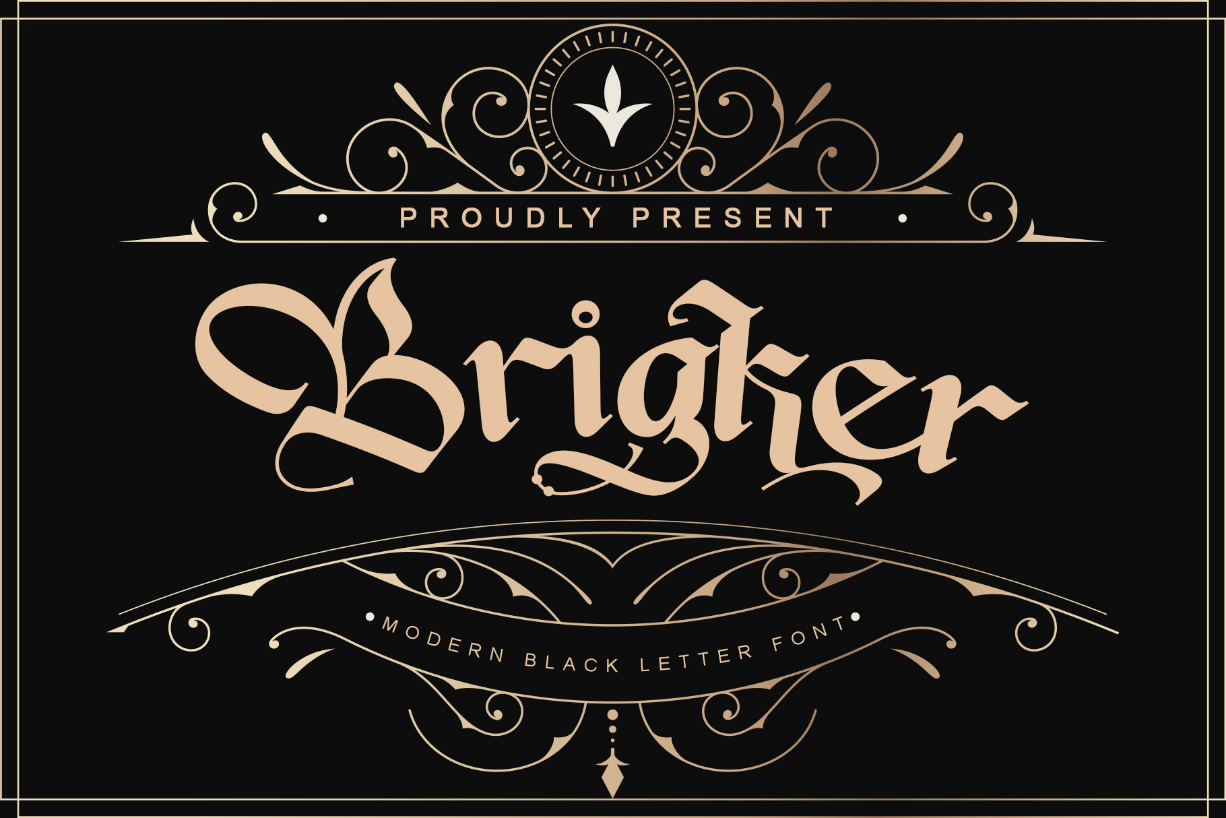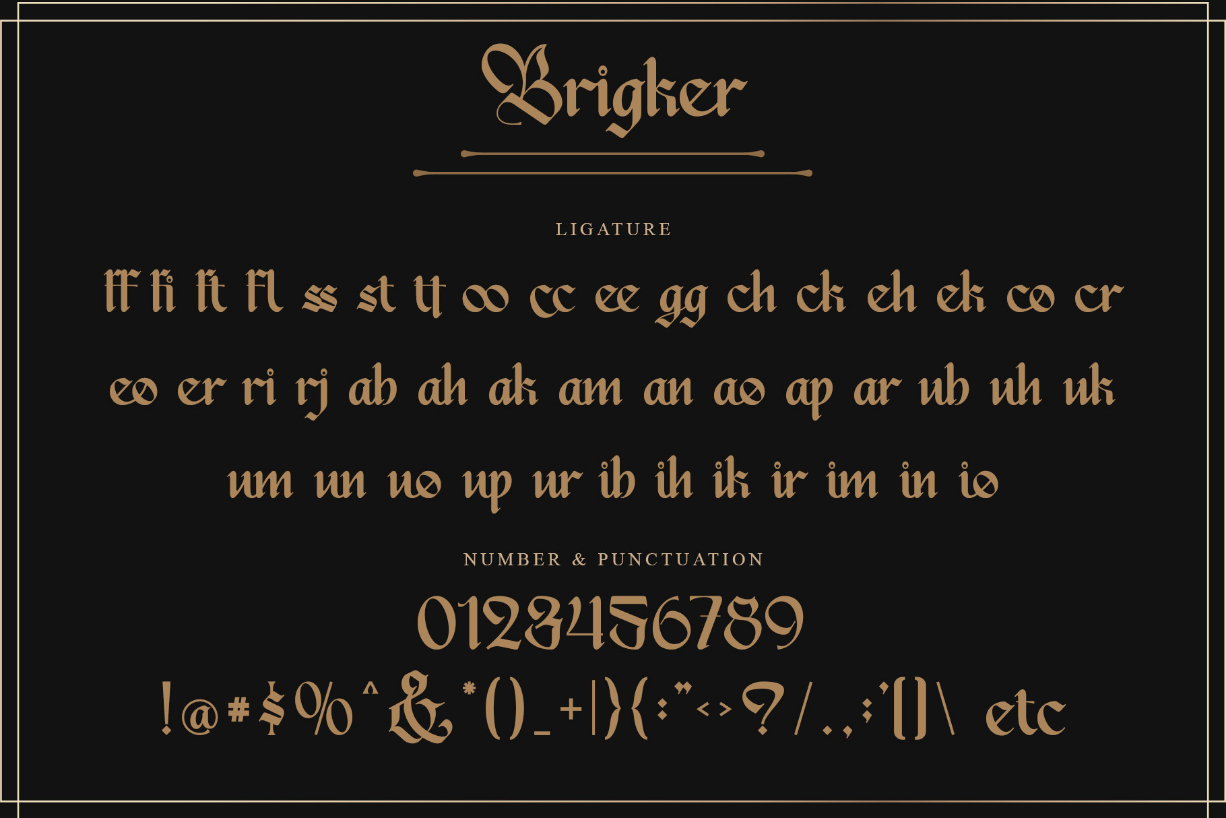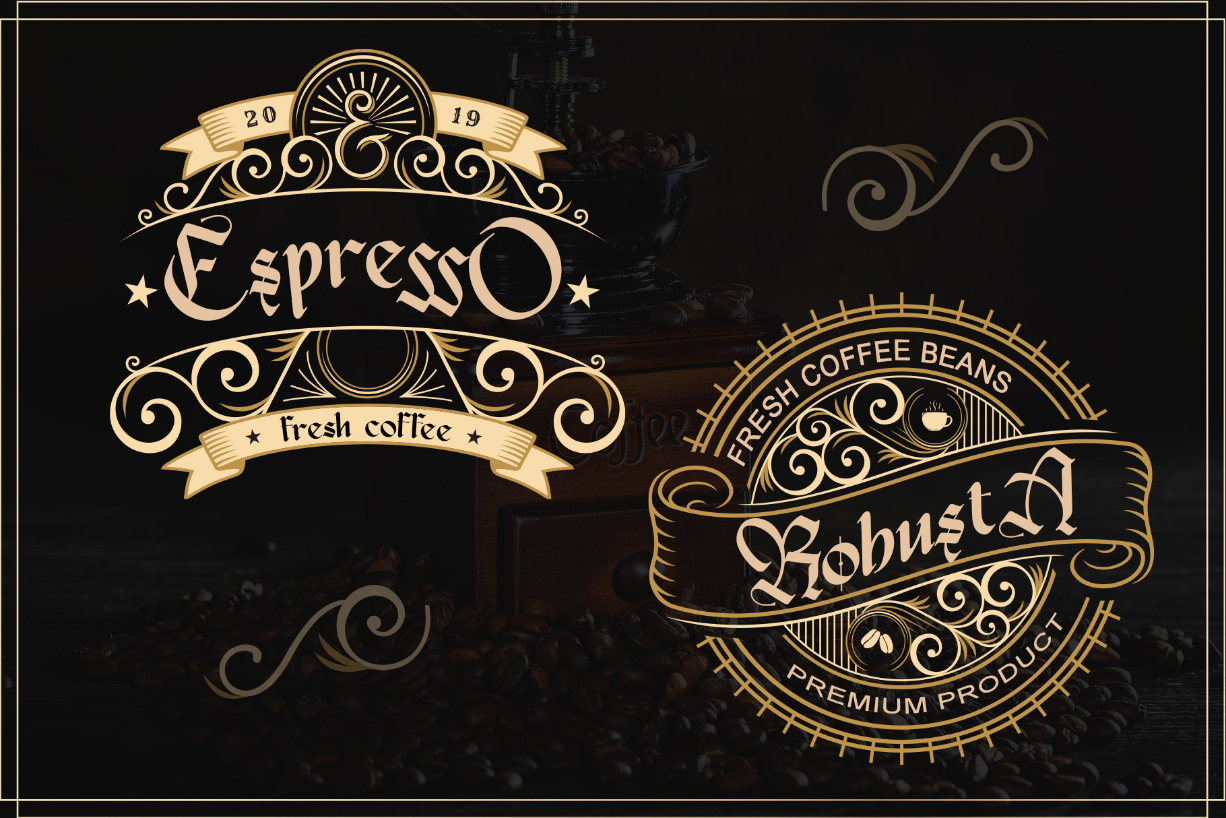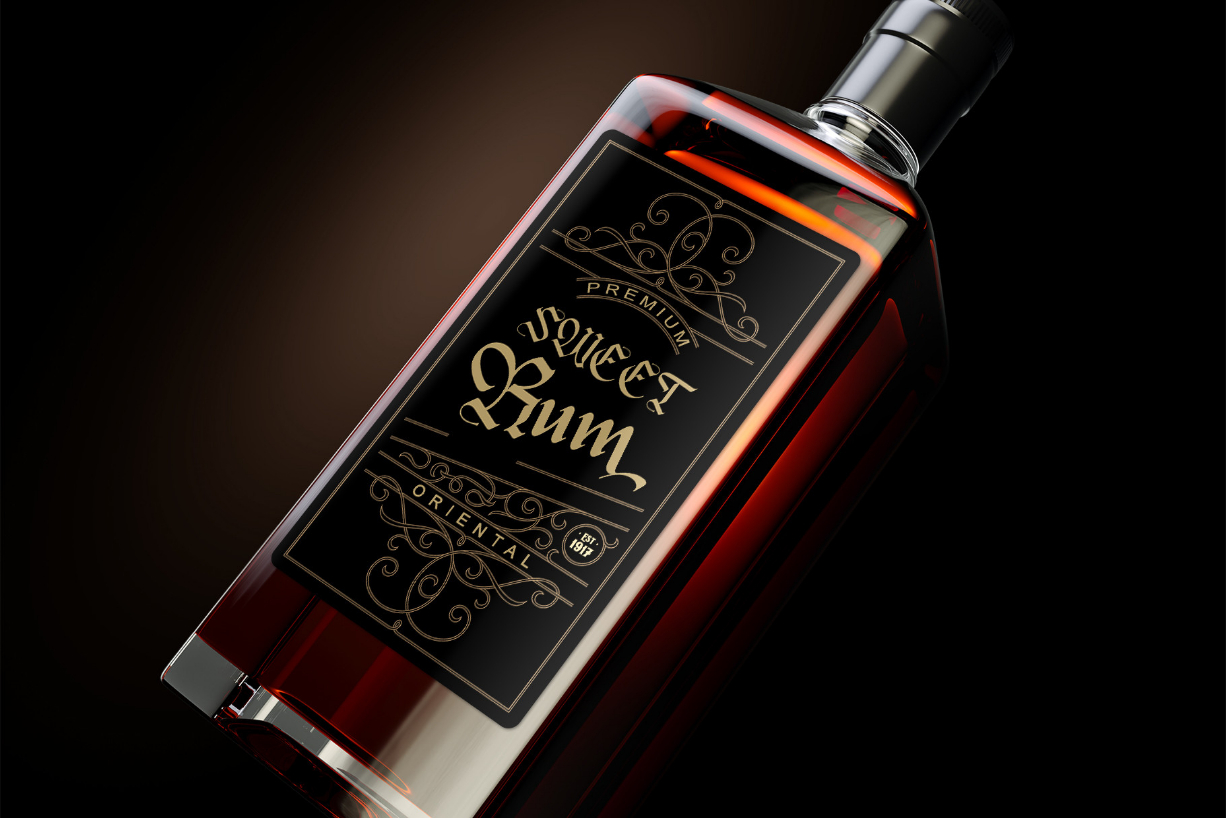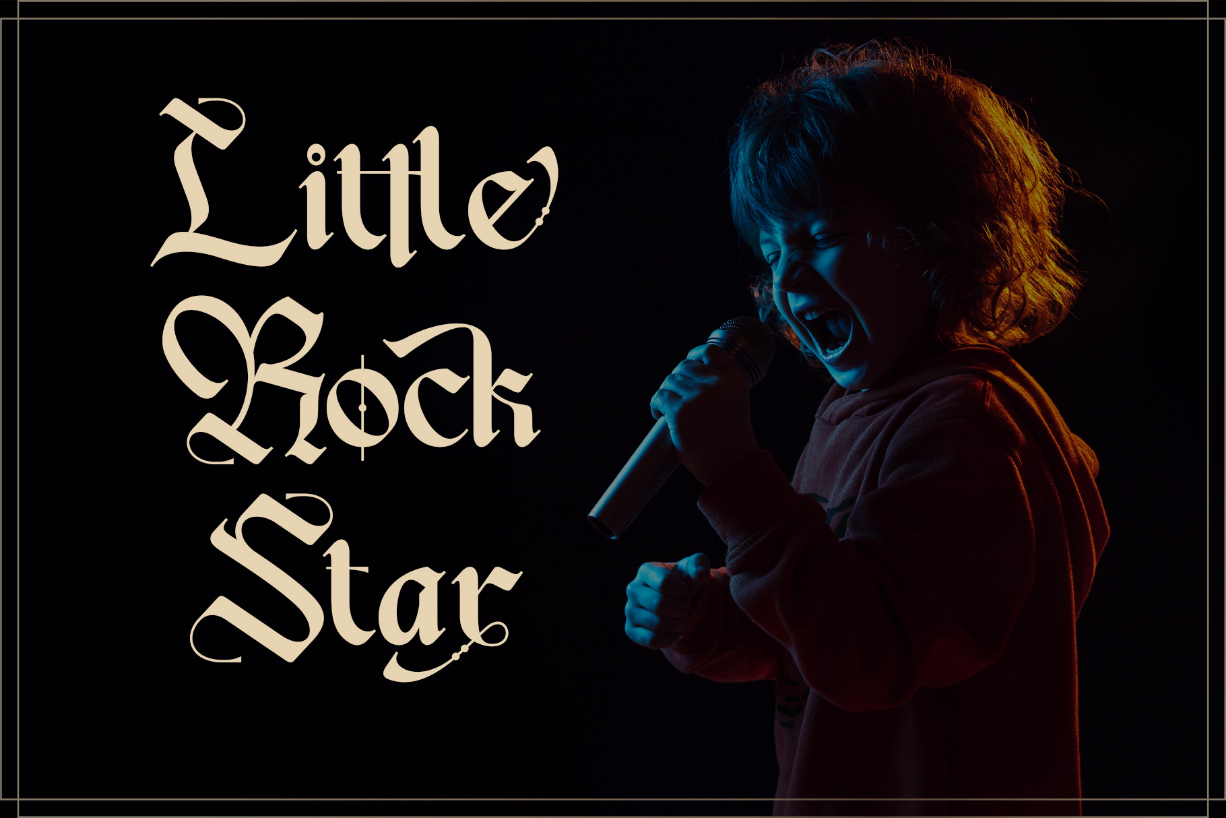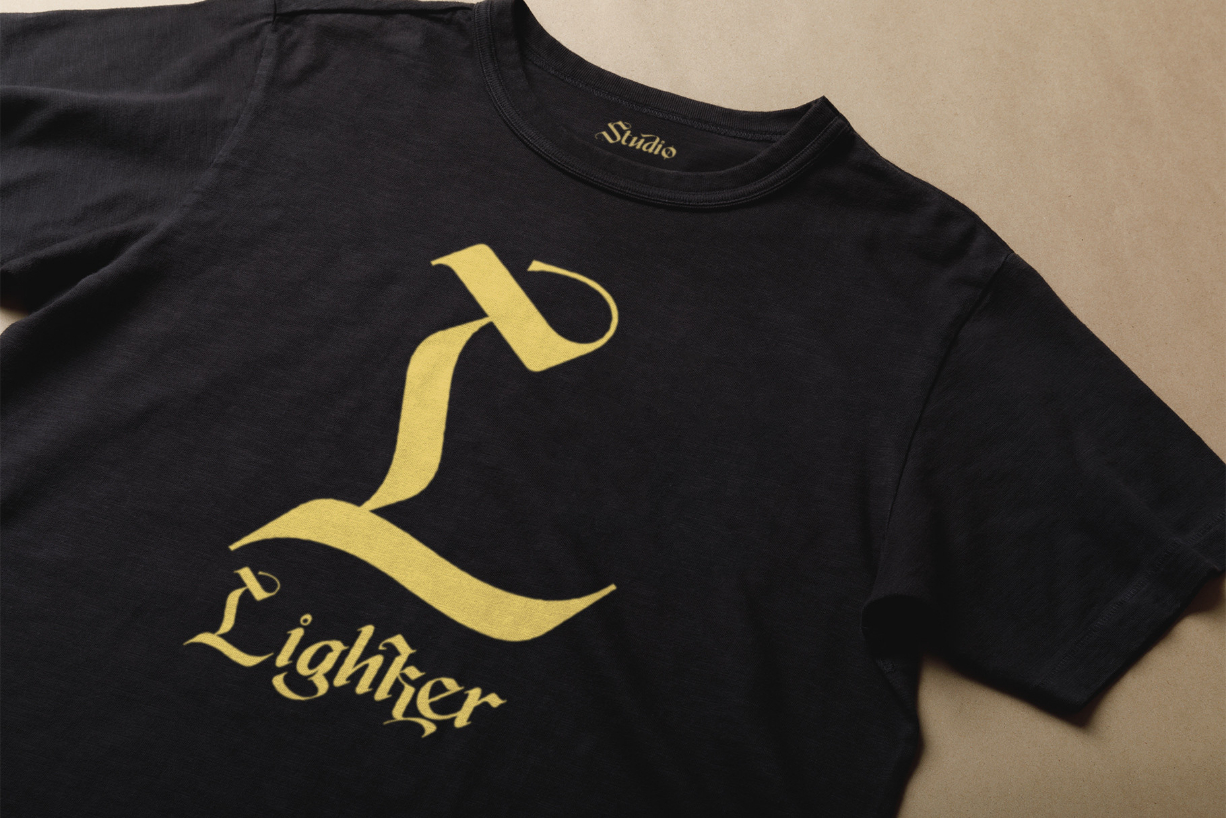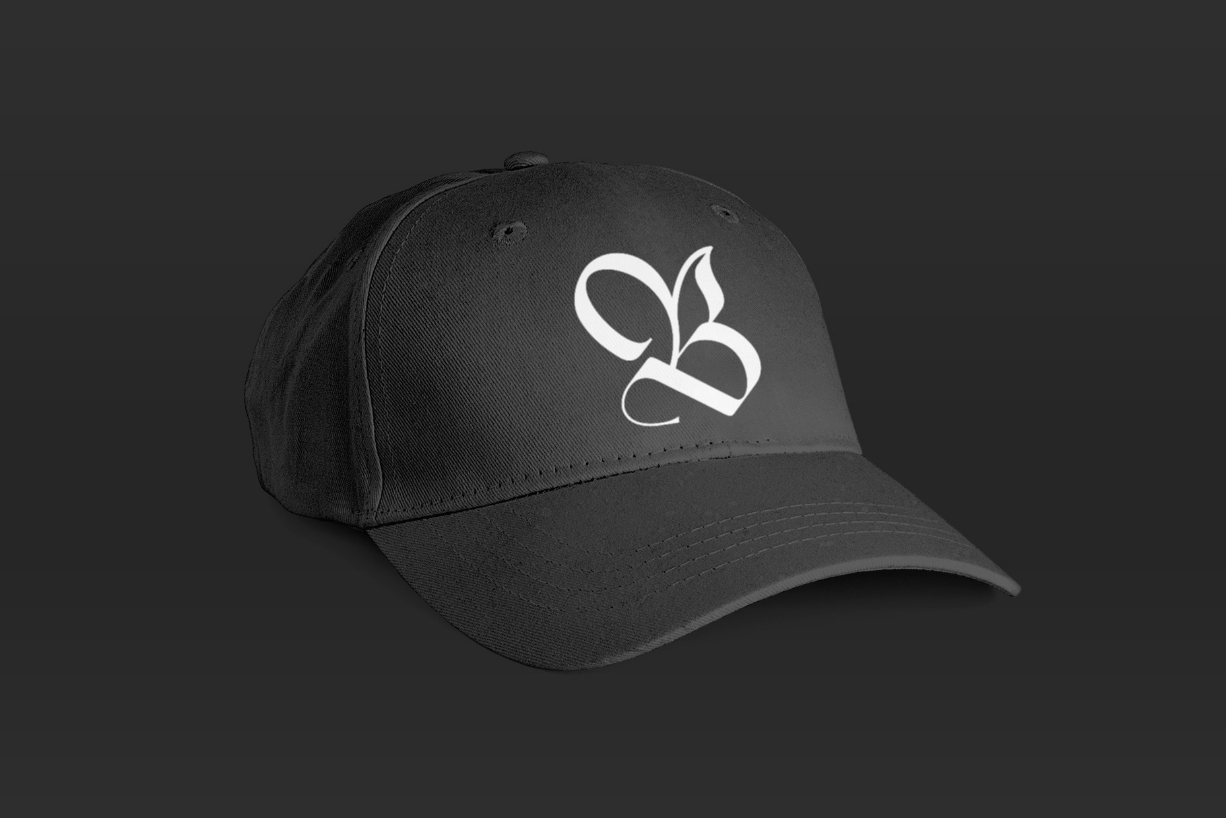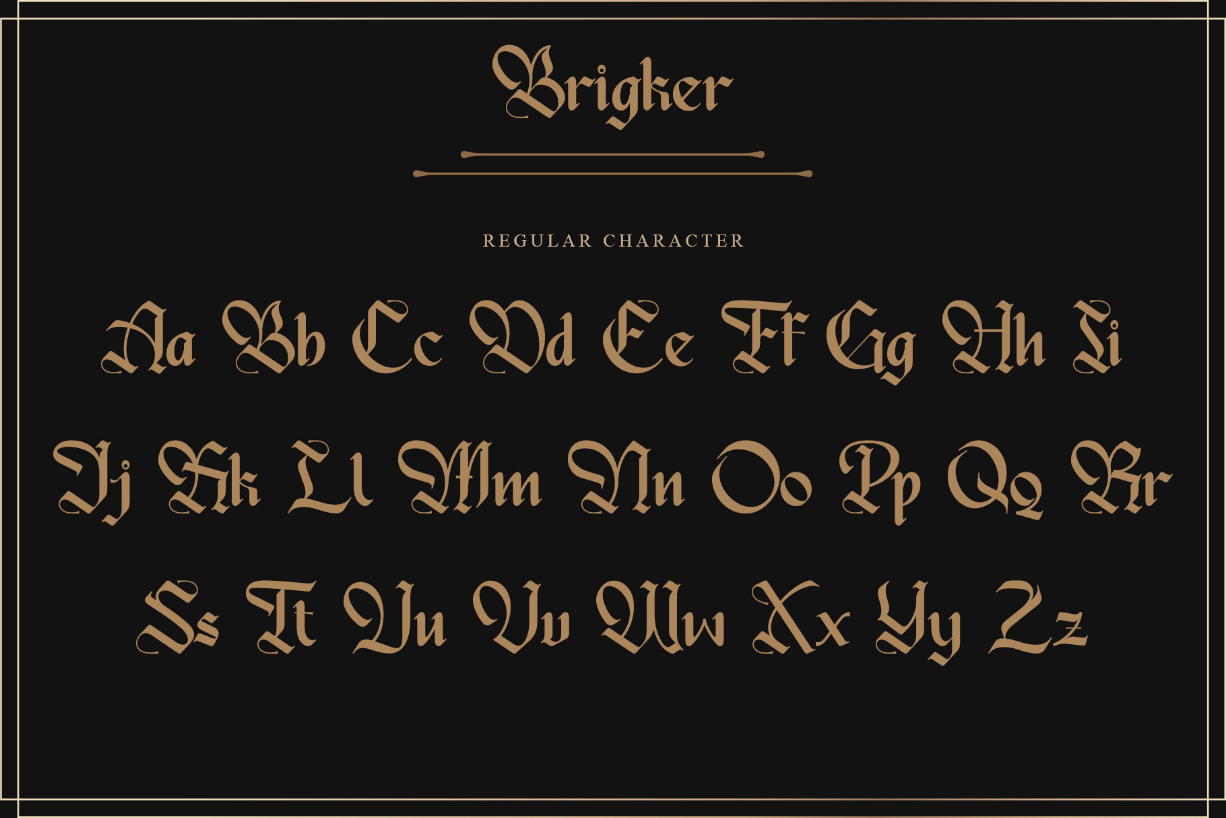
Brigker Font
About Brigker Font
Brigker is a bold, distinct and elegant blackletter font. This font is imposing and features uniquely shaped letters, and as a result, it will easily match a wide range of creations that require a distinct touch.